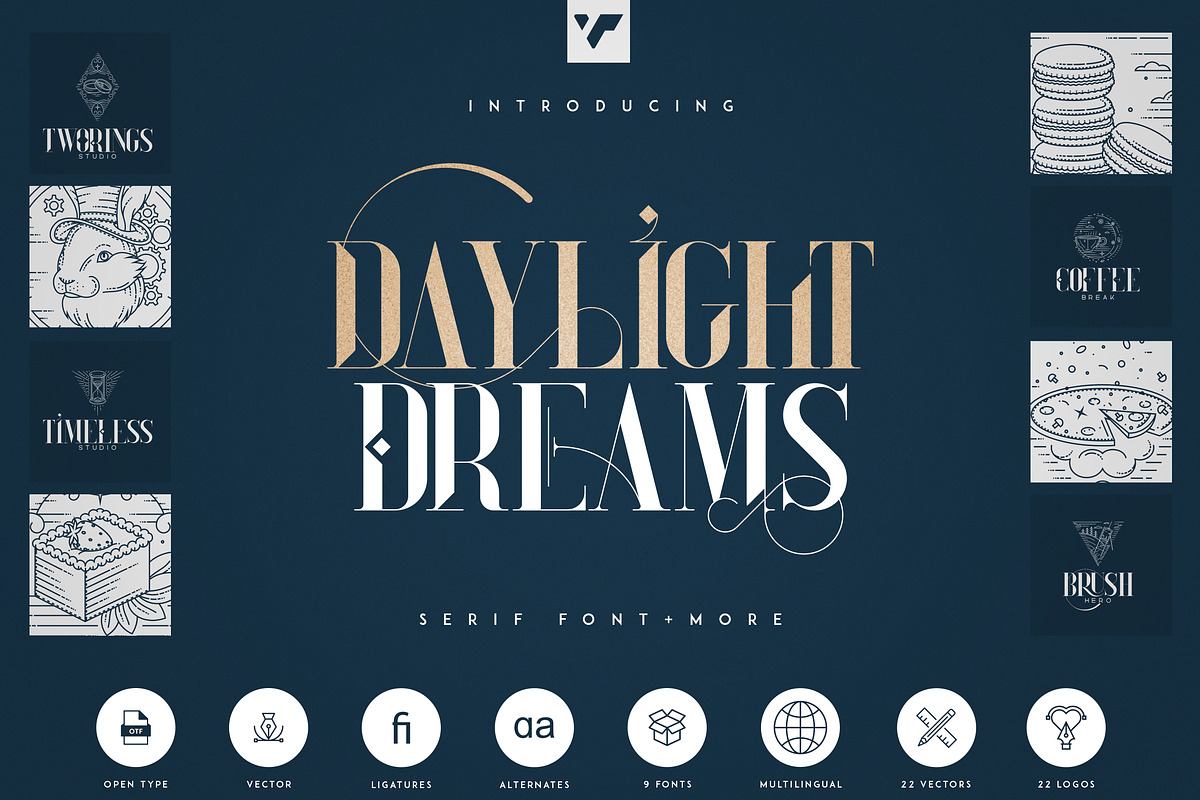
The Daylight Dreams - Serif Font + Extra Free Download is a sophisticated and elegant typeface that combines classic serif styling with a modern twist. This font is perfect for projects that require a timeless and polished look, such as branding, invitations, editorial design, and more. The added extras make it even more versatile, allowing you to experiment with decorative elements for added flair.
Daylight Dreams - Serif Font + Extra Free Download is ideal for designers who want to incorporate a high-end, traditional feel with modern touches into their work. Whether you're working on luxury branding, editorial pieces, or personal creative projects, this font will add elegance and style. Download this stunning serif font today and enhance your designs with its classic charm and extra features!